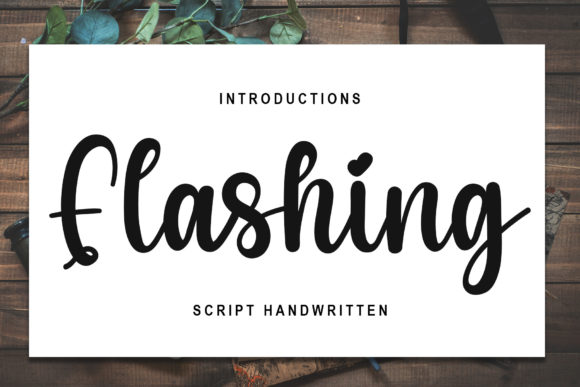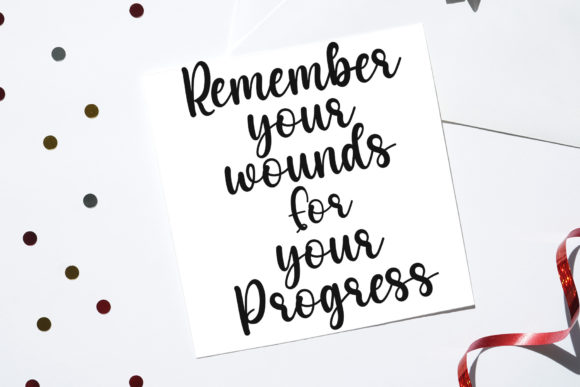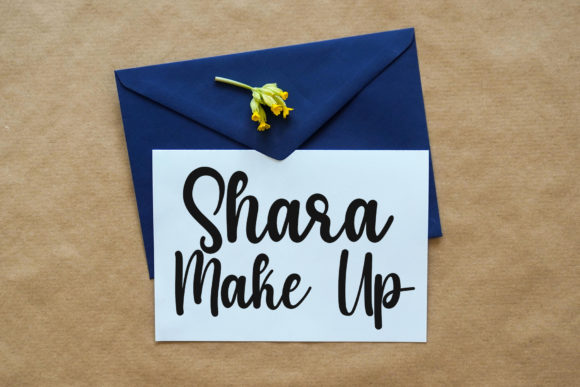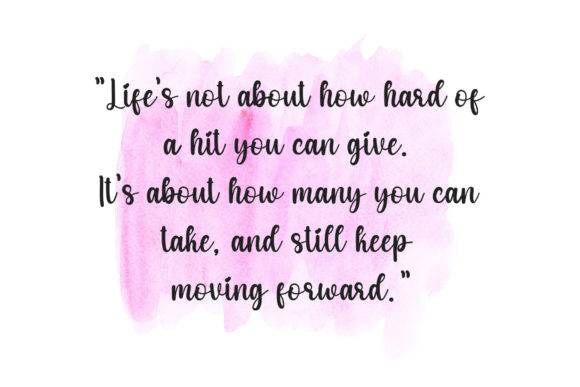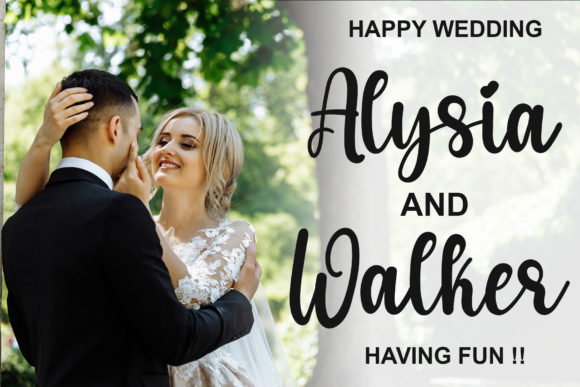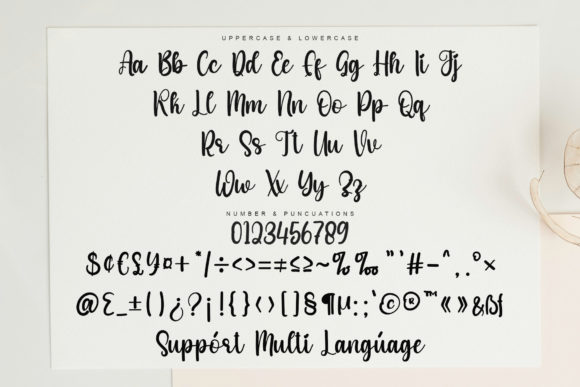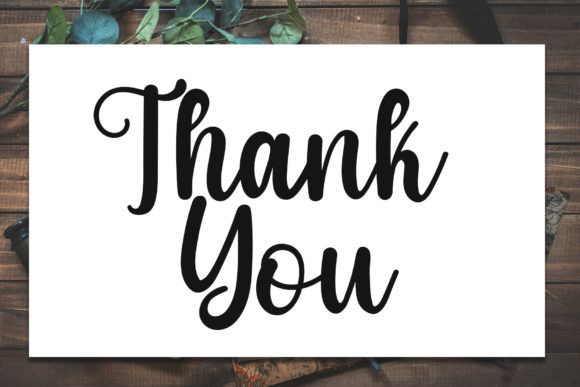
Flashing Font
About Flashing Font
“Flashing” is a clean and chic script font that brings a touch of elegance to your designs. Tailored for those seeking a refined and sophisticated aesthetic, this font is crafted to deliver perfect and amazing results in your next project.
The clean and chic nature of “Flashing” makes it an ideal choice for various design applications. Whether you’re working on invitations, branding materials, packaging, or any project that demands an elegant and polished look, this font adds a level of sophistication to your designs.
Imagine “Flashing” gracing wedding invitations, where its script style enhances the overall romantic and timeless atmosphere. The font’s clean lines contribute to a chic and polished appearance, making it suitable for capturing the essence of special occasions.
In branding projects, “Flashing” becomes a key element in creating a visual identity that exudes elegance. The chic script style ensures that your brand communicates a sense of refinement and sophistication, leaving a lasting impression on your audience.
For packaging and product design, “Flashing” adds a touch of luxury and sophistication. Its clean and chic script elevates the visual appeal, making it a perfect choice for products that aim to convey a sense of premium quality.
As you integrate “Flashing” into your creative projects, let its clean and chic script font bring an element of elegance. Whether you’re designing for print or digital media, this font stands as a refined and sophisticated choice to enhance the overall aesthetics of your designs with perfect and amazing results.